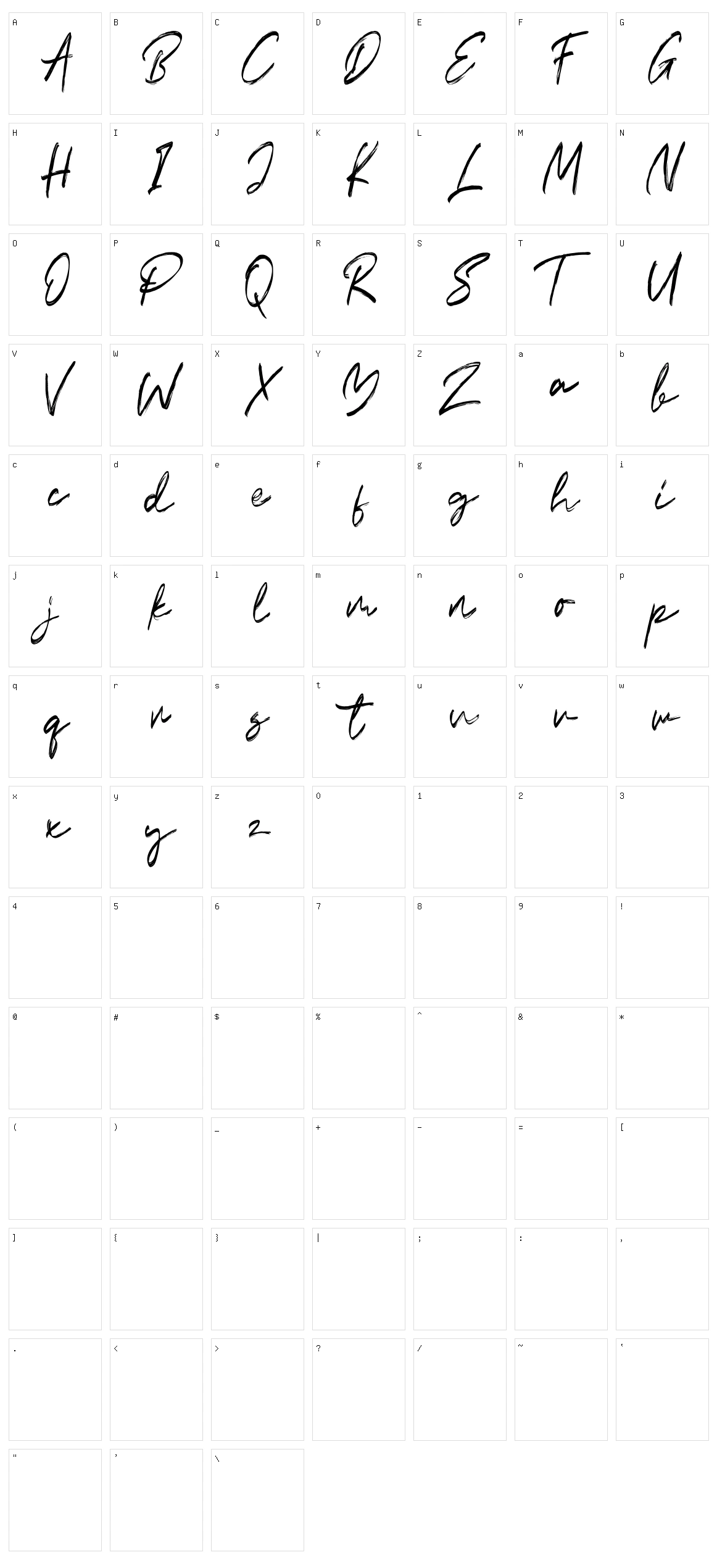
The free font Ocean Dream is carefully designed by Vunira Design, showcasing a thoughtful balance of creativity and usability and falls under the Script font style. When you download the ZIP file, it contains only 787.76 KB of font files, making it lightweight and quick to download. Please review the license details below to understand permitted usage and distribution rights. If license information is not available, we recommend using this font for personal projects only or contacting the author directly for commercial usage permissions.